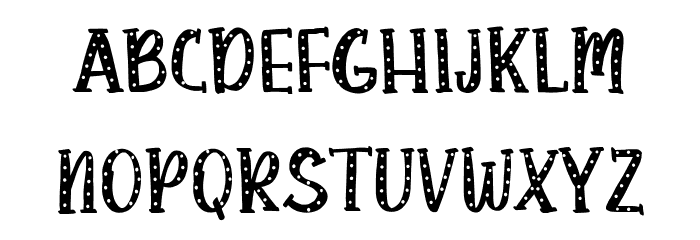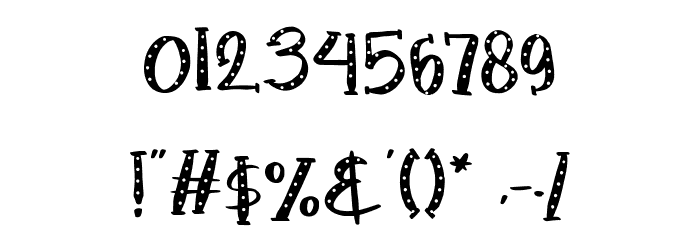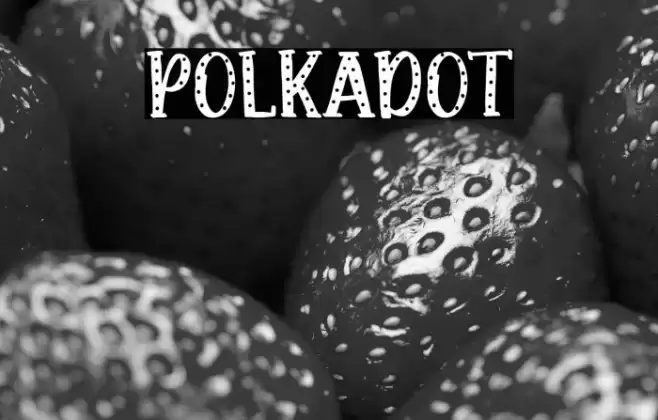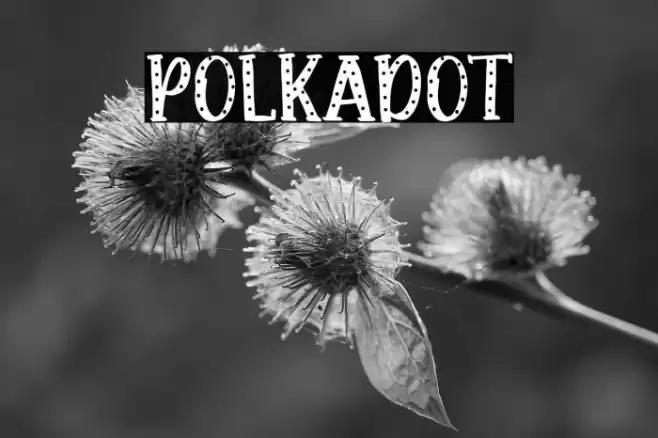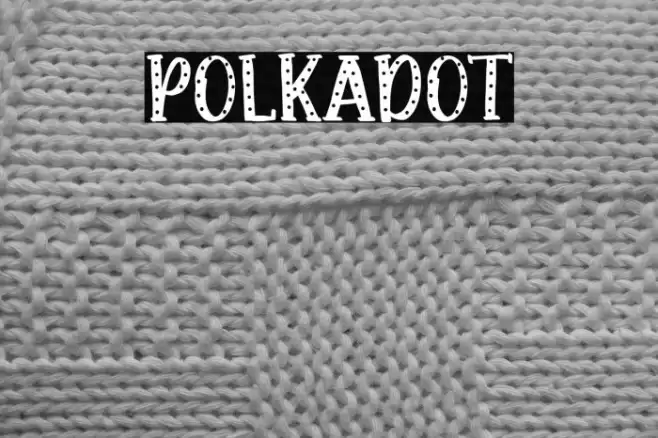
Polkadot Font
This playful and whimsical font features bold, uppercase and lowercase letters adorned with polka dots, creating a lively and eye-catching appearance. The characters are slightly rounded, adding a friendly and approachable feel. The numbers and special characters maintain the same decorative style, ensuring consistency throughout. This font's unique design makes it ideal for projects that require a fun and engaging visual element.
A playful, polka-dotted decorative font with a whimsical style.
- Proposed Projects: Ideal for children's books, party invitations, playful branding, and creative posters.
- Overall Style: Whimsical